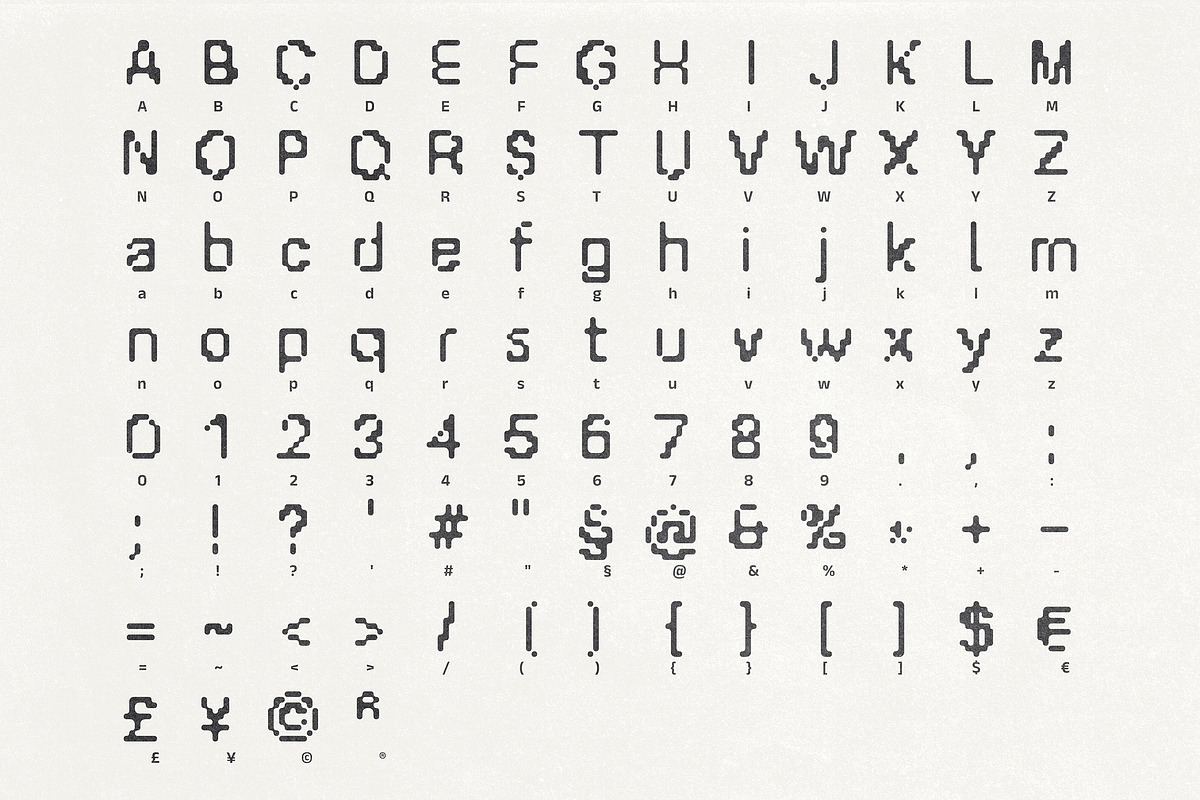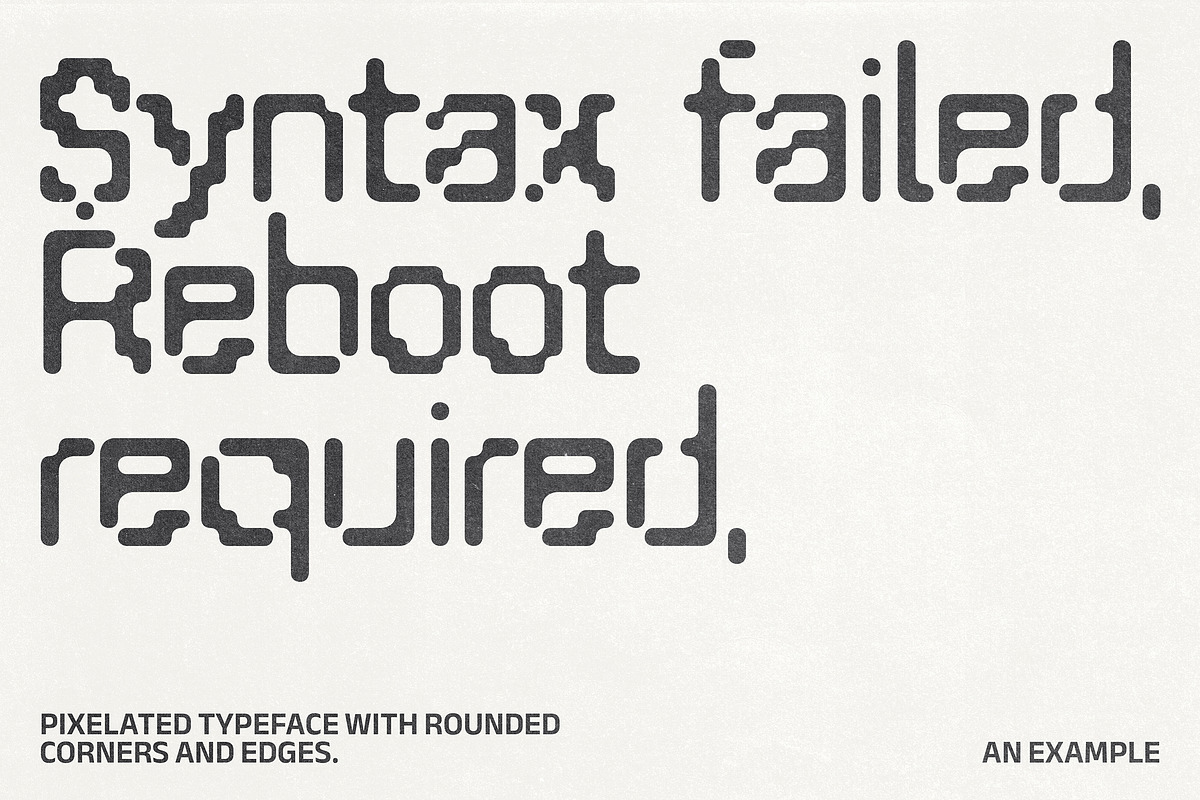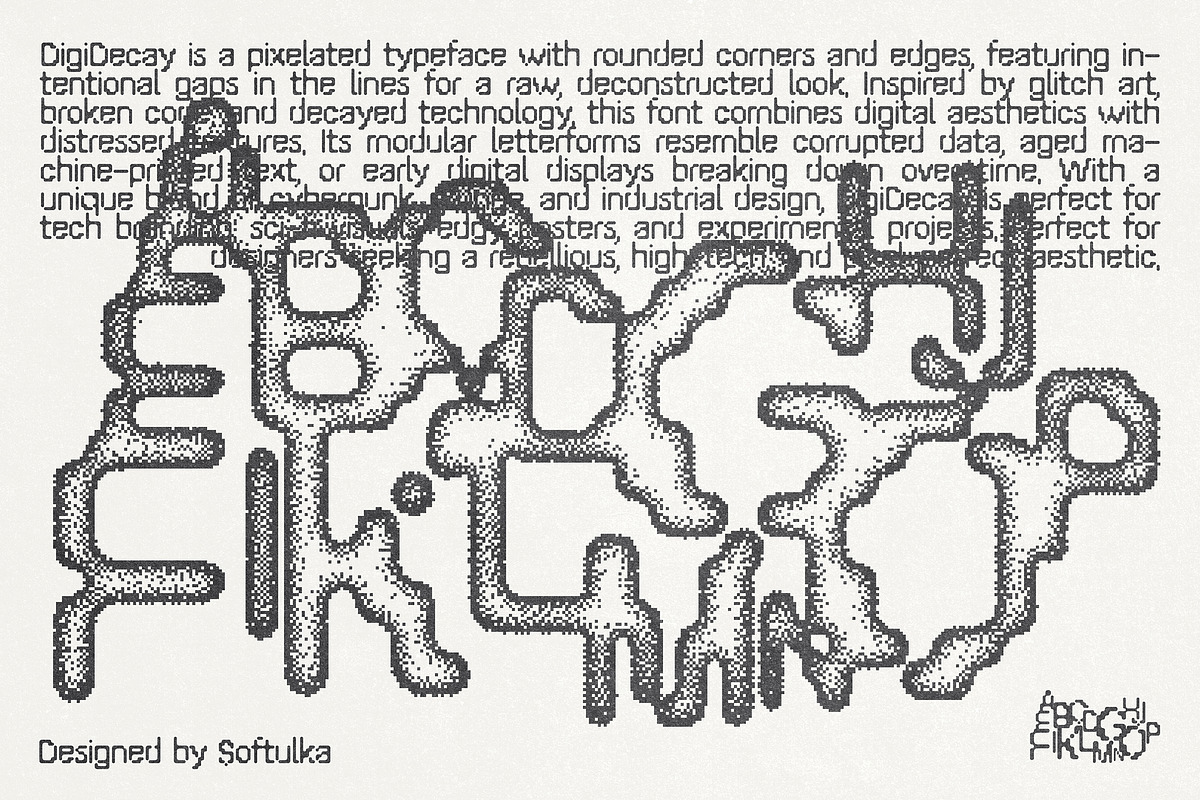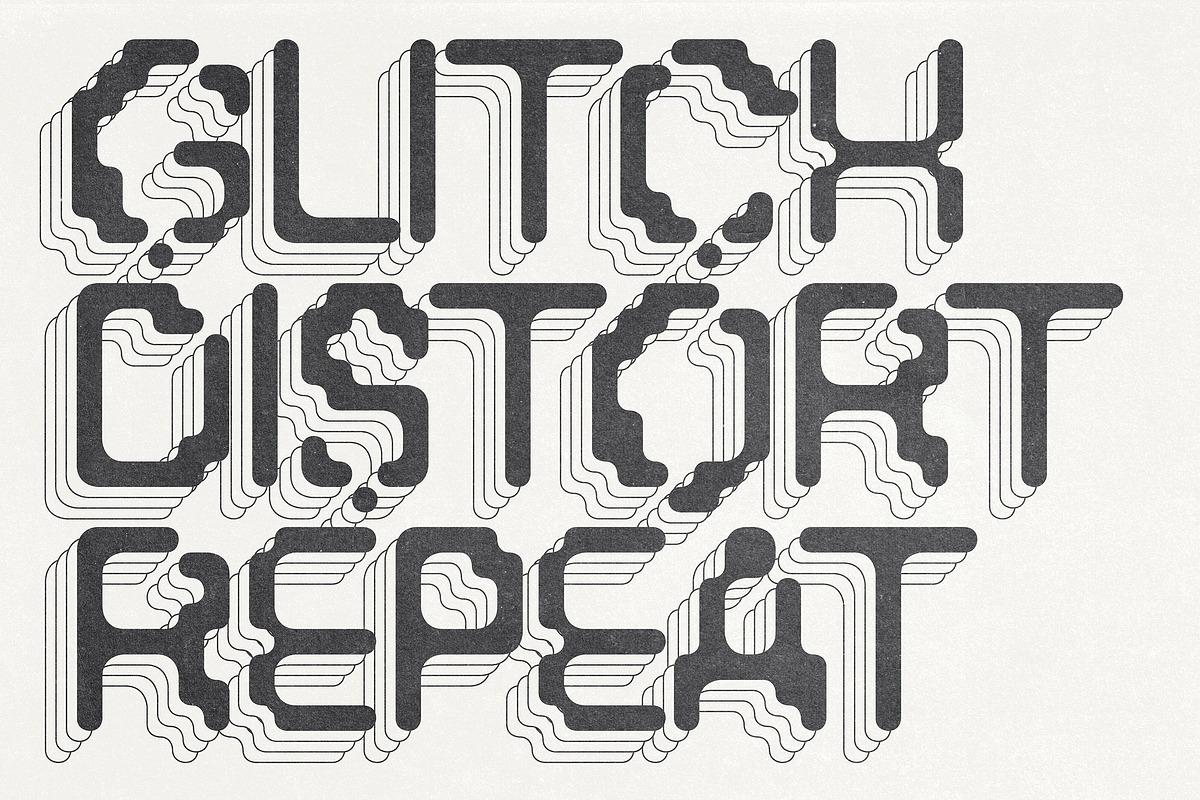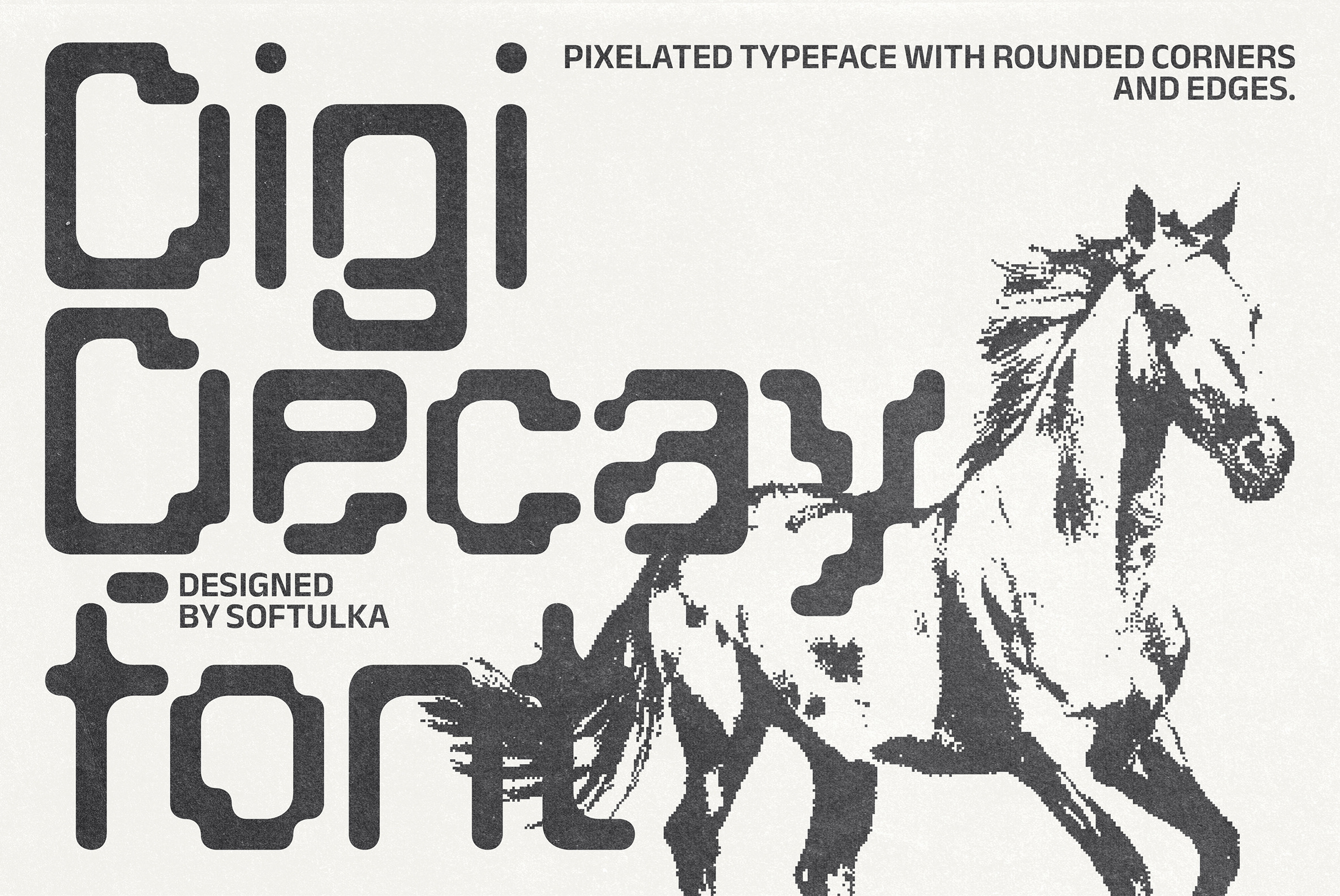
Digi Decay Pixelated Typeface
DigiDecay is a pixelated typeface with rounded corners and edges, featuring intentional gaps in the lines for a raw, deconstructed look. Inspired by glitch art, broken code, and decayed technology, this font combines digital aesthetics with distressed textures. Its modular letterforms resemble corrupted data, aged machine-printed text, or early digital displays breaking down over time. With a unique blend of cyberpunk, grunge, and industrial design, DigiDecay is perfect for tech branding, sci-fi visuals, edgy posters, and experimental projects. Perfect for designers seeking a rebellious, high-tech, and pixel-perfect aesthetic. ✦ What You'll Get: ✦